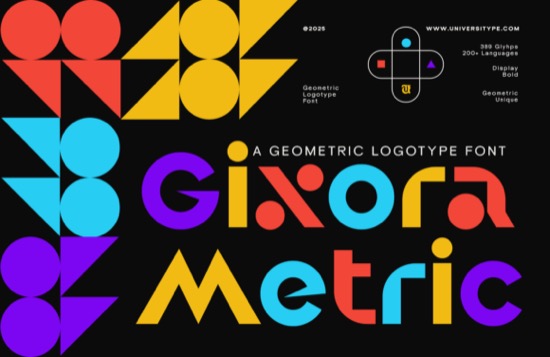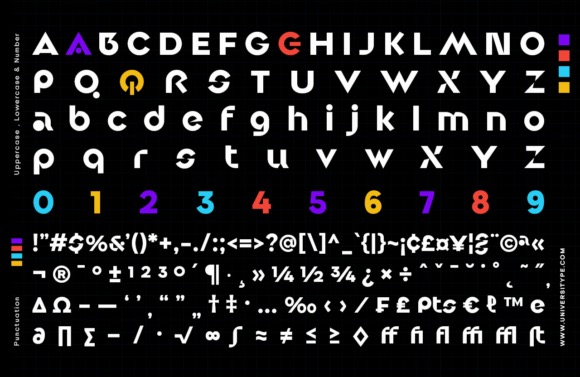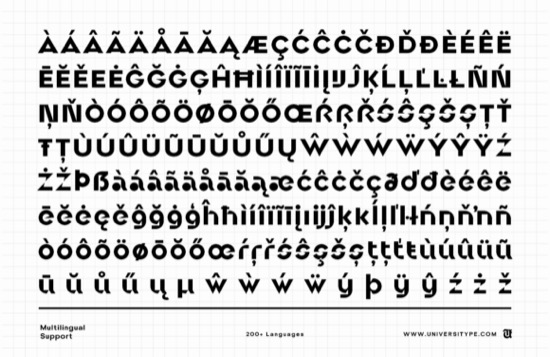
UT Gixora Metric is an elegant and flowing display sans font with classy, simple curves. Its modern touch breathes new life into your designs, setting your brand apart in a bustling scene.
With formidable strokes and a bold, robust weight, Gixora Metric promises high-impact text that compels attention and etches a profound impression. Its influenced by simple geometrical shapes; circles, rectangles, and triangles – curating a distinctive and ultramodern allure.
Flexibility is Gixora’s second nature, with compatibility with 200+ languages, making it a global communication and branding phenomenon. With an extensive offering of 389 glyphs, incorporating a diverse array of characters, symbols, and accents, your design potential is limitless with UT Gixora Metric.
The versatility it offers is unparalleled: whether it’s for logo design, headlines, or prominent text elements, Gixora Metric adjusts beautifully to any design concept.
Its unique and geometric flair helps carve a memorable and recognizable brand identity that will surely captivate your audience. With its bold and urban design, it guarantees text visibility, helping to garner audience engagements.
Moreover, Gixora Metric’s multi-language support broadens your brand’s outreach and facilitates effective cross-cultural communication. Simplify your font selection process with its inclusive glyph set and flexibility, saving your crucial time and effort.
Ut Gixora Metric Display Font